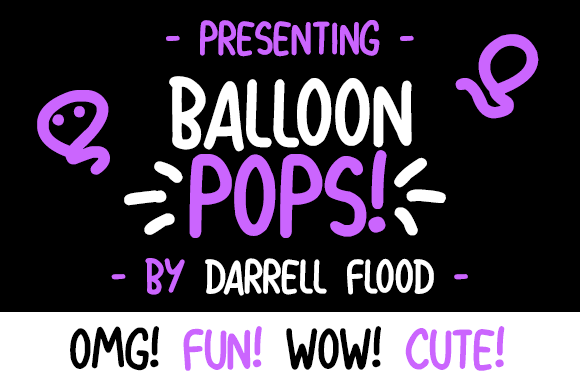
Balloon Pops
Balloon Pops Font
Balloon Pops is a fun, friendly font in a casual felt tip style. Perfect for birthdays and other balloon filled events! This handwritten sans serif includes little floating balloons!